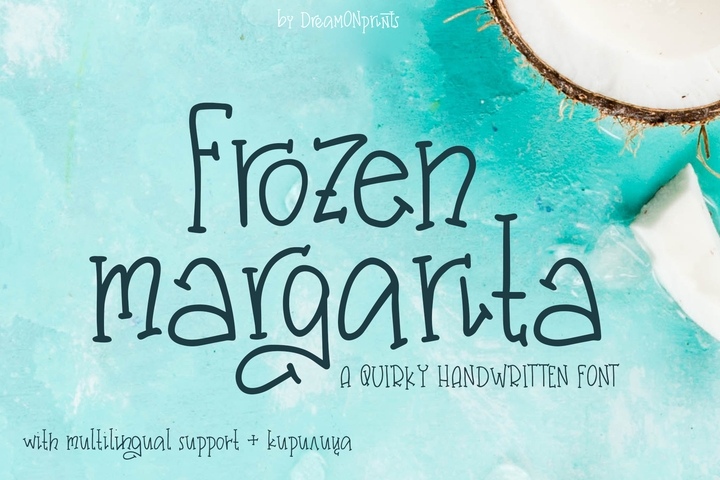
Frozen Margarita Font
Frozen Margarita Font is perfect for tropical branding, beach resort logos, cocktail menus, summer campaigns, vacation advertising, party invitations, festival graphics, tiki bar signage, beverage packaging, and fun visual communications. This playful typeface excels in both digital and print applications requiring tropical vibes.
Frozen Margarita Font is exciting because it captures the refreshing spirit of tropical paradise with vibrant letterforms that evoke summer fun and vacation relaxation while maintaining excellent readability. Its festive character creates memorable brand experiences that resonate with audiences seeking escape, celebration, and tropical lifestyle.
The Frozen Margarita Font family includes regular, bold, light, italic, condensed, extended, and tropical variants, providing designers with comprehensive typographic options for various design scenarios and vacation communication requirements.
Frozen Margarita Font embodies the carefree essence of tropical paradise, delivering exceptional typography that reflects the joyful energy and relaxing atmosphere associated with beach vacations and summer celebrations. This vibrant typeface draws inspiration from tiki culture, beach parties, and tropical cocktails to create letterforms that communicate fun, relaxation, and vacation escape. The font's festive character makes it particularly valuable for resort hotels, beach bars, travel agencies, and entertainment venues that require typography capable of conveying tropical atmosphere, vacation excitement, and celebration spirit.
The refreshing construction of Frozen Margarita Font demonstrates careful attention to tropical design principles, with flowing proportions and playful details that create inviting compositions reminiscent of beach environments and vacation aesthetics. This fun approach ensures excellent performance across diverse applications, from cocktail menus to marketing campaigns where tropical appeal enhances brand attractiveness. The font's vibrant qualities make it especially effective for brands in hospitality, beverage industry, travel services, and entertainment venues that celebrate summer fun and tropical lifestyle.
Creative professionals working with Frozen Margarita Font Free Download will appreciate the typeface's versatility across tropical and contemporary design challenges. Its festive styling bridges vacation fantasy with commercial appeal, making it suitable for established resort brands and innovative hospitality companies requiring distinctive, memorable typography with tropical charm. The font's energetic presence makes it particularly effective for beach clubs, tropical restaurants, summer festivals, and vacation businesses that must communicate fun through vibrant, inviting visual design.
Whether developing tropical brand identities, creating vacation communications, or designing summer marketing materials, Frozen Margarita Font provides the tropical energy needed for communications that inspire escape and celebrate summer fun while maintaining professional standards and achieving authentic connection with audiences who value relaxation and tropical paradise experiences.